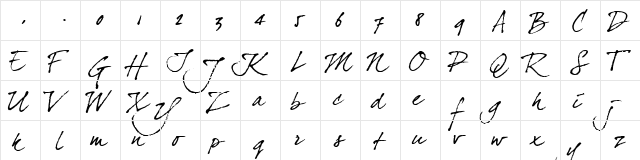
dearJoe4 Regular
| Foundry | J O E B O B graphics |
| Designer | J O E B O B graphics |
Design Context for dearJoe4 Typeface
dearJoe4 takes a measured approach to typography — its balanced proportions and neutral character make it a reliable workhorse for both digital and print work.